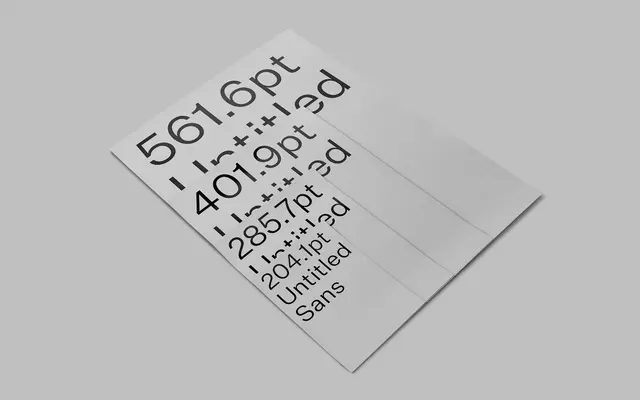
Untitled Sans
Klim Type Foundry · Kris Sowersby · 2017
Untitled Sans specimen from Klim Type Foundry
A plain neo-grotesque drawn around Morrison and Fukasawa's Super Normal idea, deliberately ordinary and wearable across editorial and branding.
A neo-grotesque sans by Kris Sowersby drawn around the Super Normal project of Jasper Morrison and Naoto Fukasawa, deliberately resisting personality at the level of the individual letter. Five weights from Light to Black run with italics, and a variable weight axis is supplied with the full family. Pairs by concept (rather than skeleton) with Untitled Serif, and gets used widely by brands wanting a sans that recedes into the design system rather than performing.
Klim classifies it as Modern: Lineal/Neo-grotesque; a plain neogrotesk sans validated by the ideas of Jasper Morrison and Naoto Fukasawa's Super Normal project, with a deliberate aesthetic of not being designed by anyone in particular.